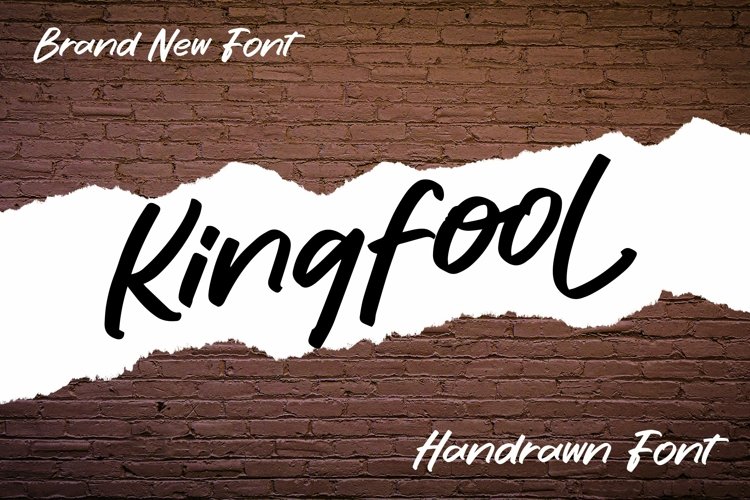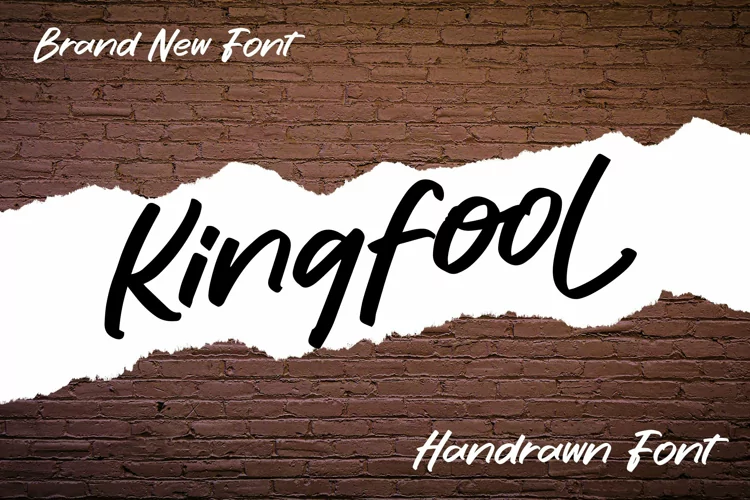
Kingfool - Handrawn Font that contain lowercase, uppercase, symbol, and also support multi language. There’s a lot ligatures in this font. This Font also comes with ligatures, alternates and many more. this font suitable for fashion, branding, catalog and other design what you want.